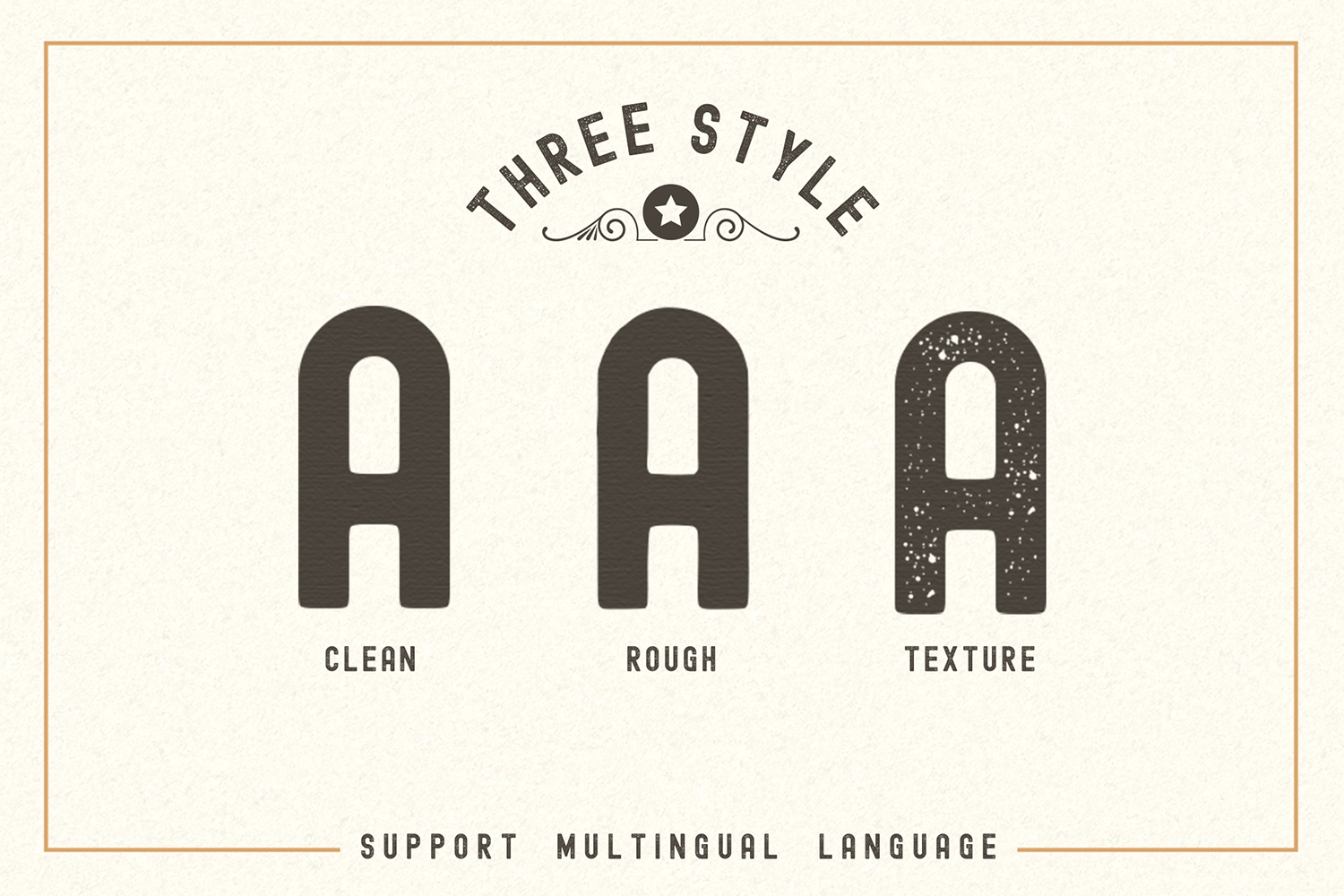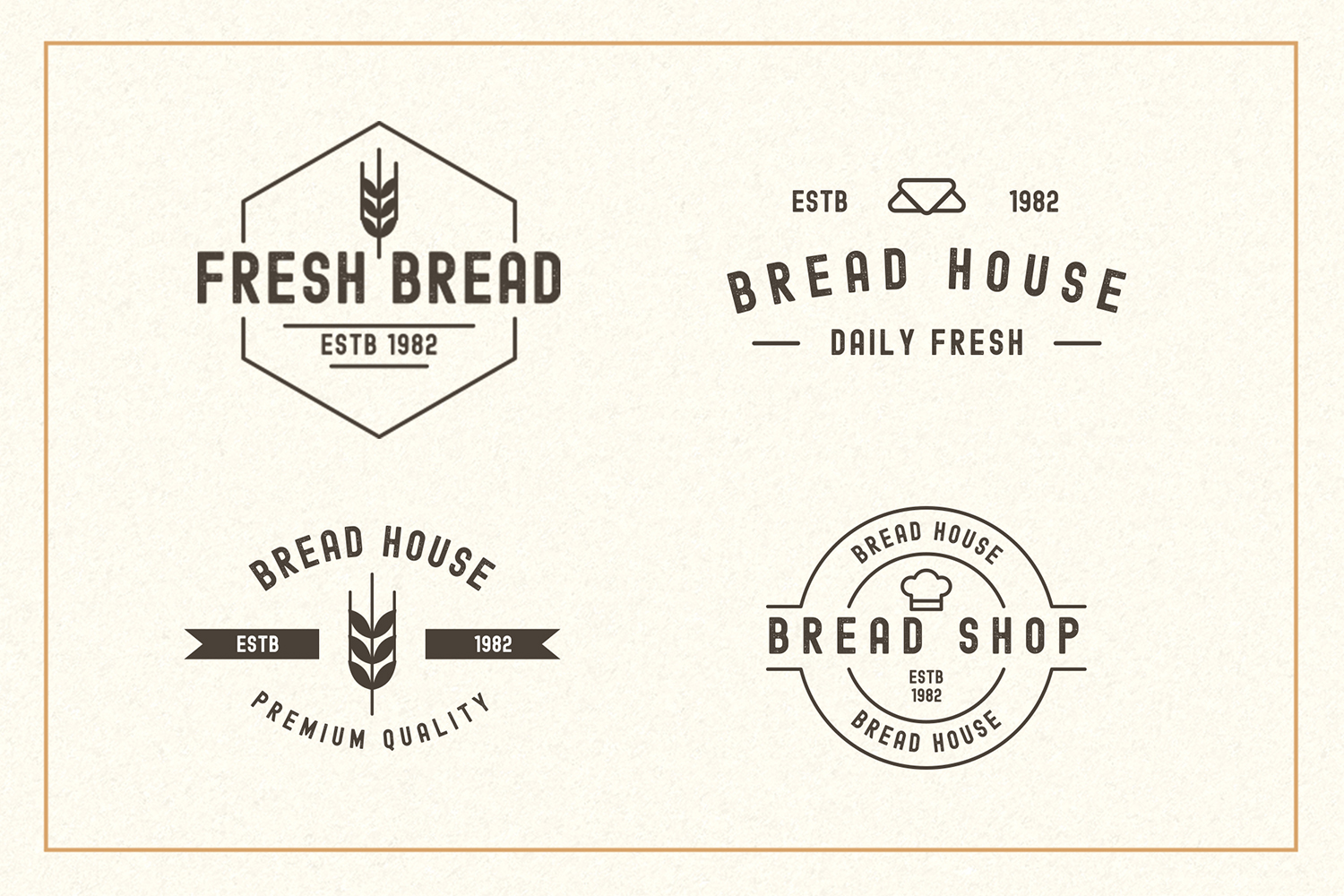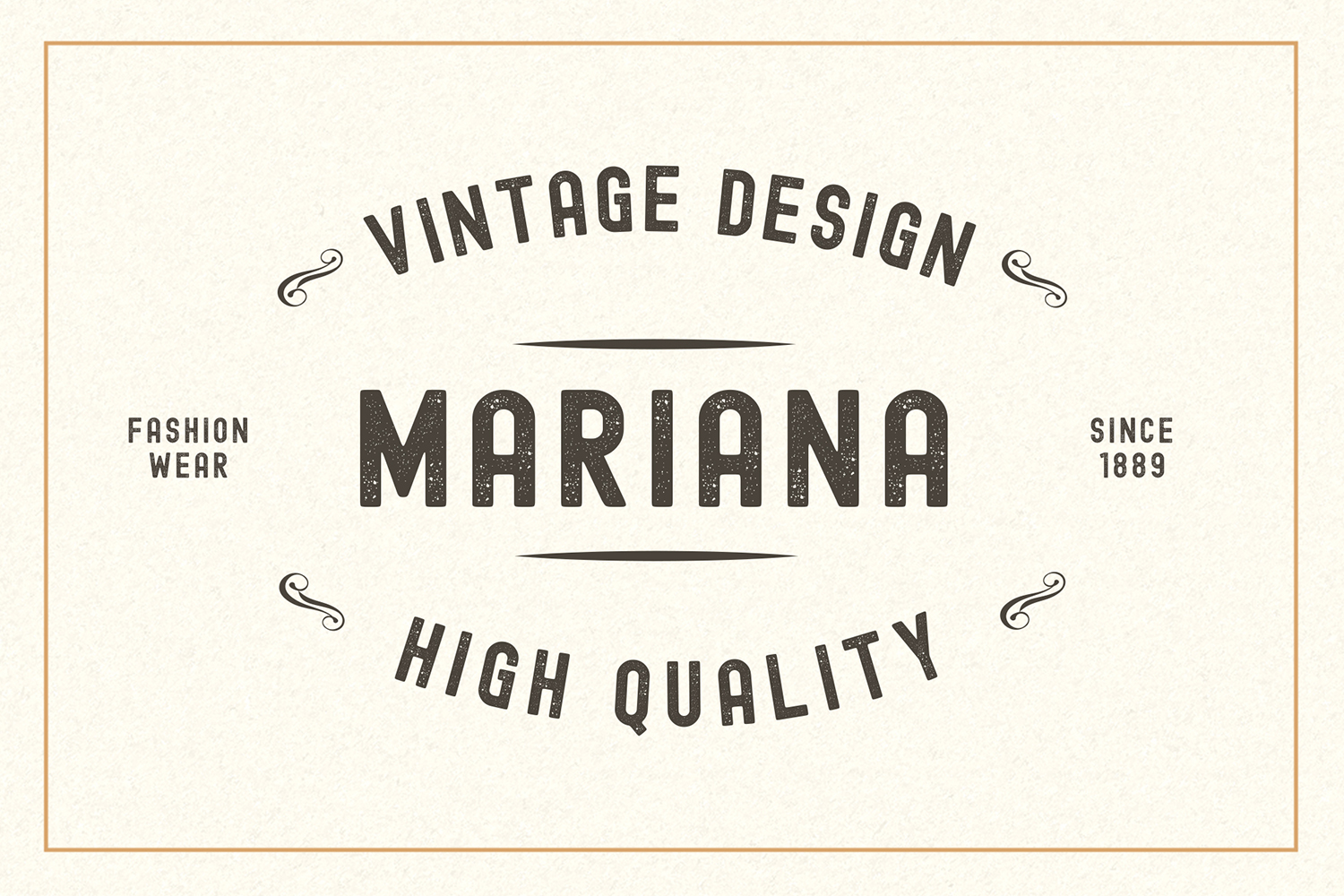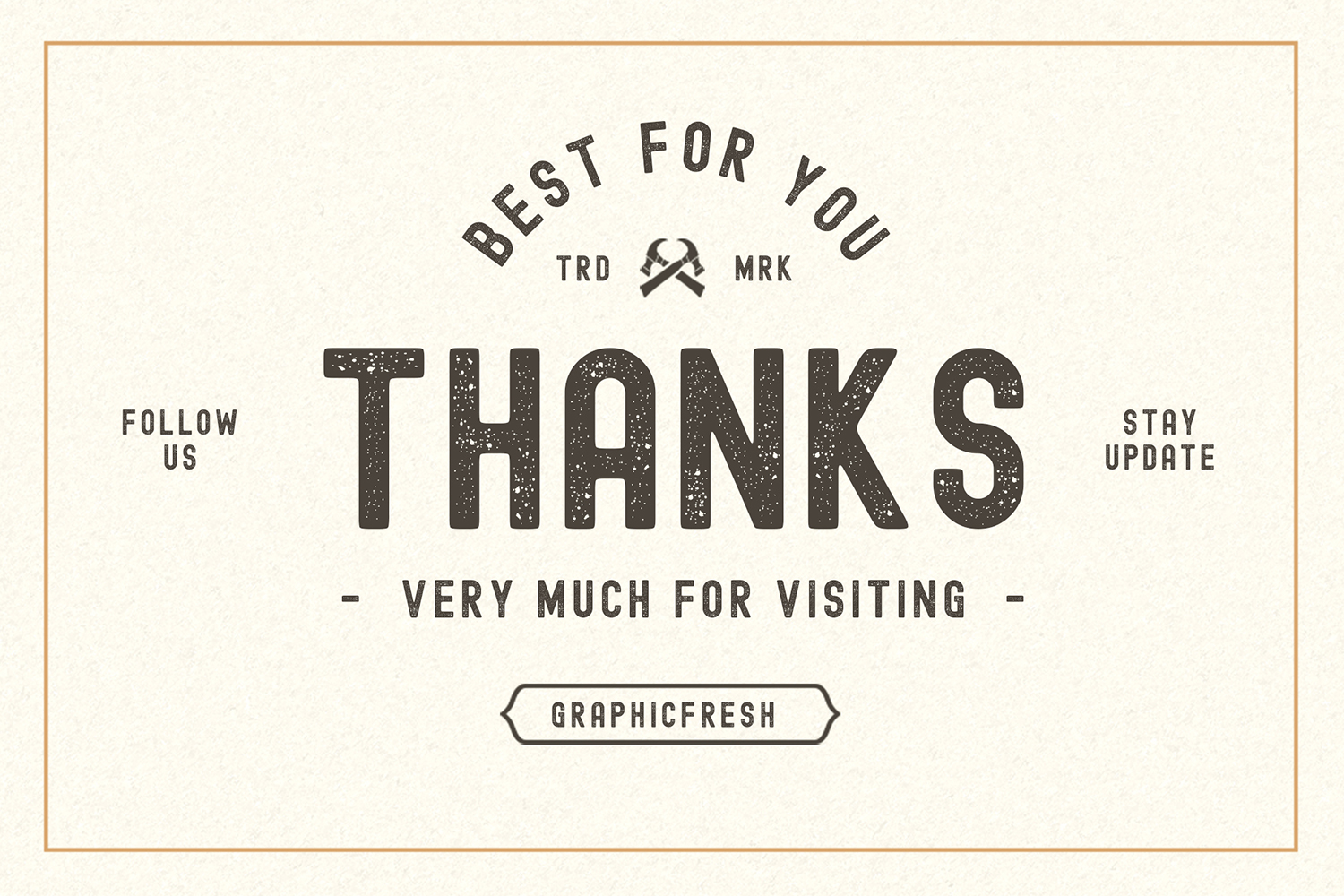
Edmund Free Font
Edmund Free Font is a vintage display family including Textured, Rough & Clean versions as well as Italic versions of each. it’s perfect for logos, name cards, magazine layouts, invitations, headers, or even large-scale artwork. This free typeface was designed by the talented Graphicfresh Official. If you like it don’t forget to check out the full version.